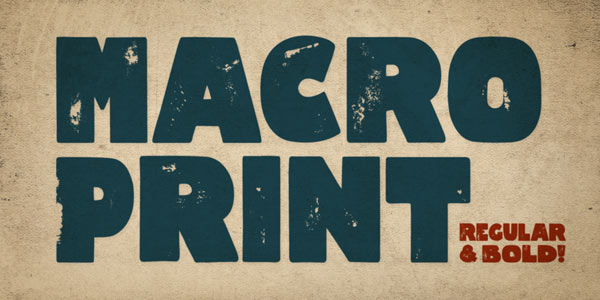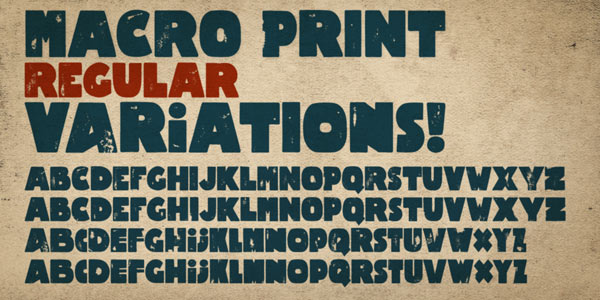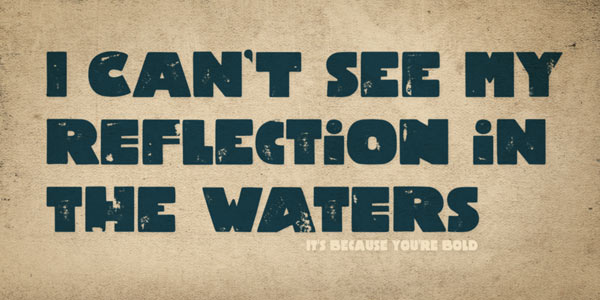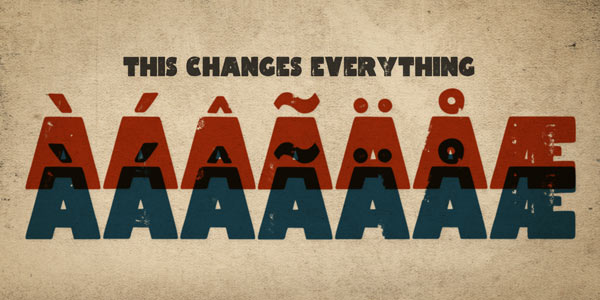
Macro Print Typeface.
Swedish type designer Andreas Brunelius created the Macro Print display font in 2013 (Type Foundry: Jagjagvi). This grunge typeface comes in a regular and bold version. Even the regular version has a very strong and bold typeface. Macro Print offers a hand-printed appearance. Two character sets within the regular and bold version provide an authentic look. The Macro Print font is well suited for big headlines and grungy titles.